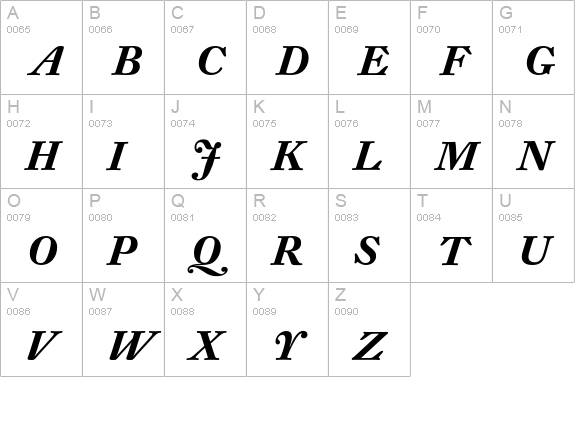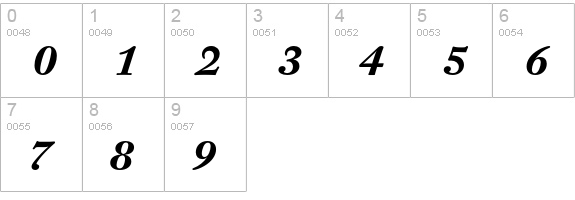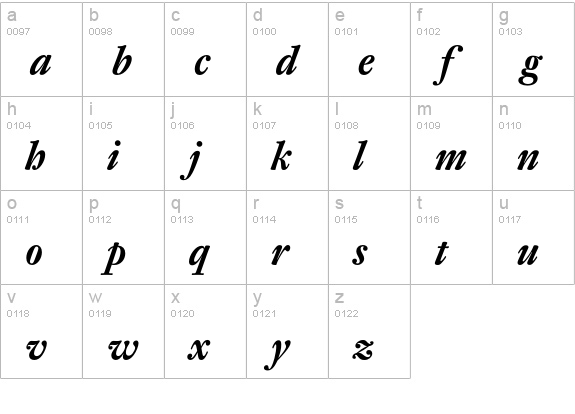
DTL Fleischmann D Bold Italic is a strong, high-contrast, italic variant in the DTL typeface family \xE2\x80\x94 well suited to headlines, attention-grabbing titles, and strong calls-to-action.
The DTL Fleischmann D Bold Italic font is a bold and dynamic typeface that exudes a sense of strength and sophistication. Its sleek italicized design adds a touch of elegance and flair to any project, making it ideal for headlines, titles, and other attention-grabbing text. This font is characterized by its bold strokes and distinct letterforms, which make it stand out in both print and digital formats. Whether you're designing a poster, logo, or website, the DTL Fleischmann D Bold Italic font will make a bold statement and leave a lasting impression on your audience. Best of all, this font is available for free download at FontsMarket.com, allowing you to easily access and use it in your projects without any cost. Don't miss out on the opportunity to enhance your designs with the striking and versatile DTL Fleischmann D Bold Italic font today!